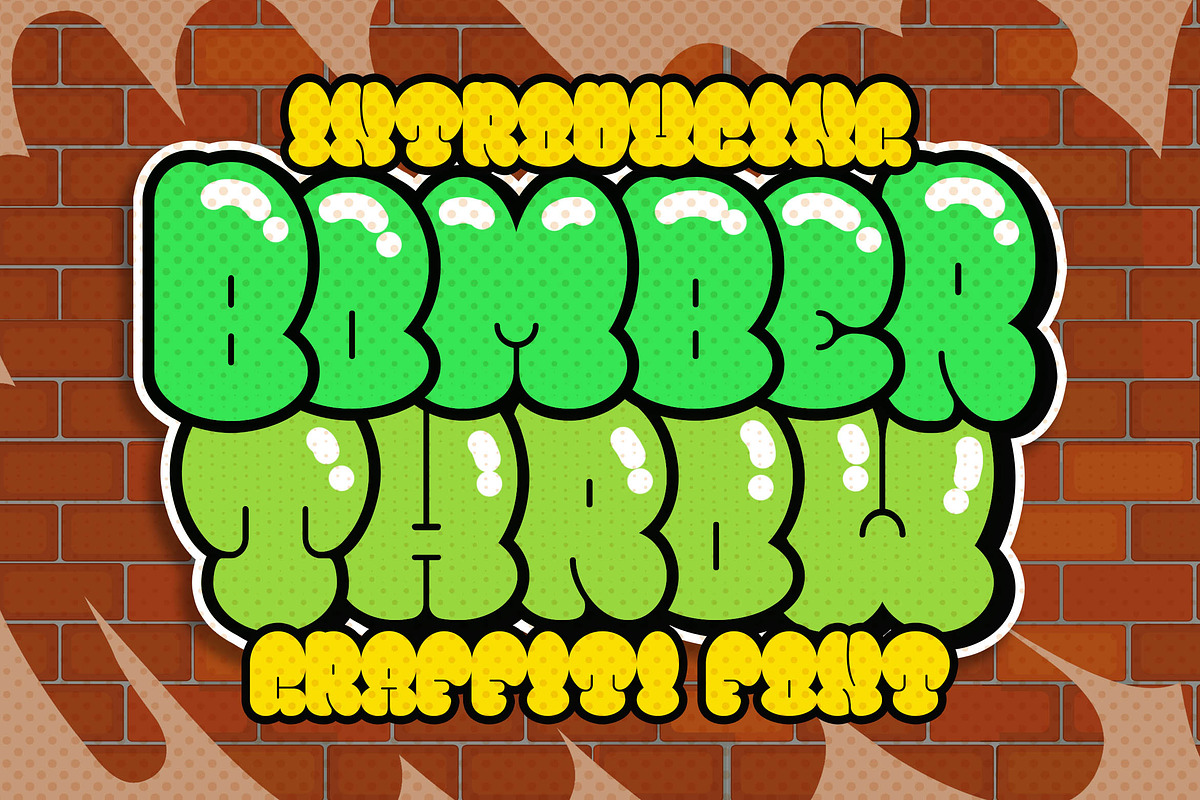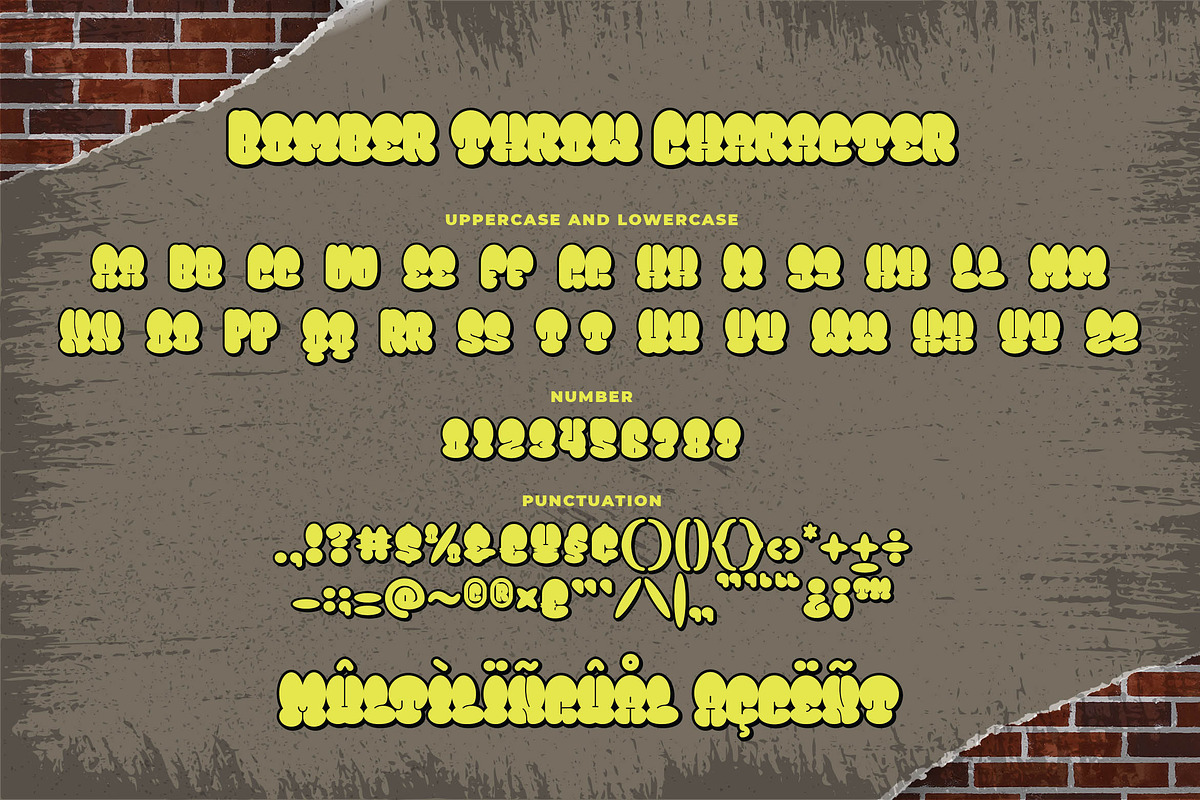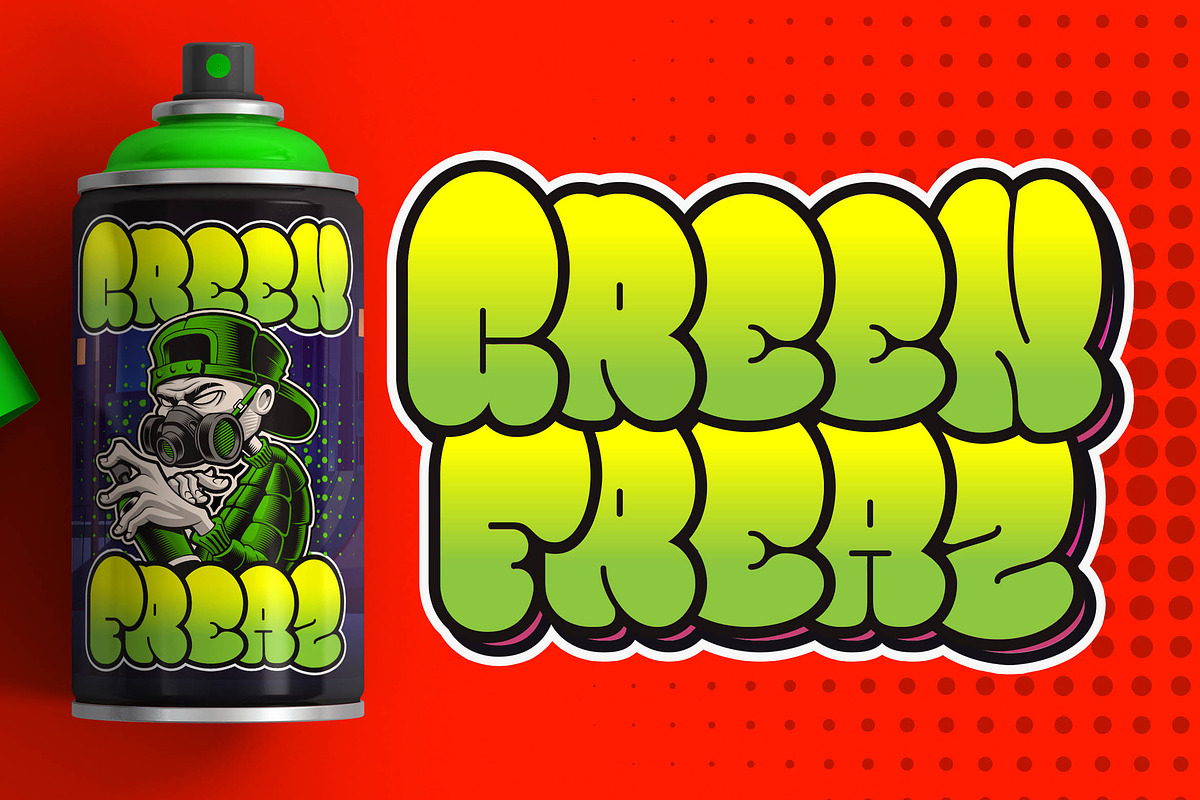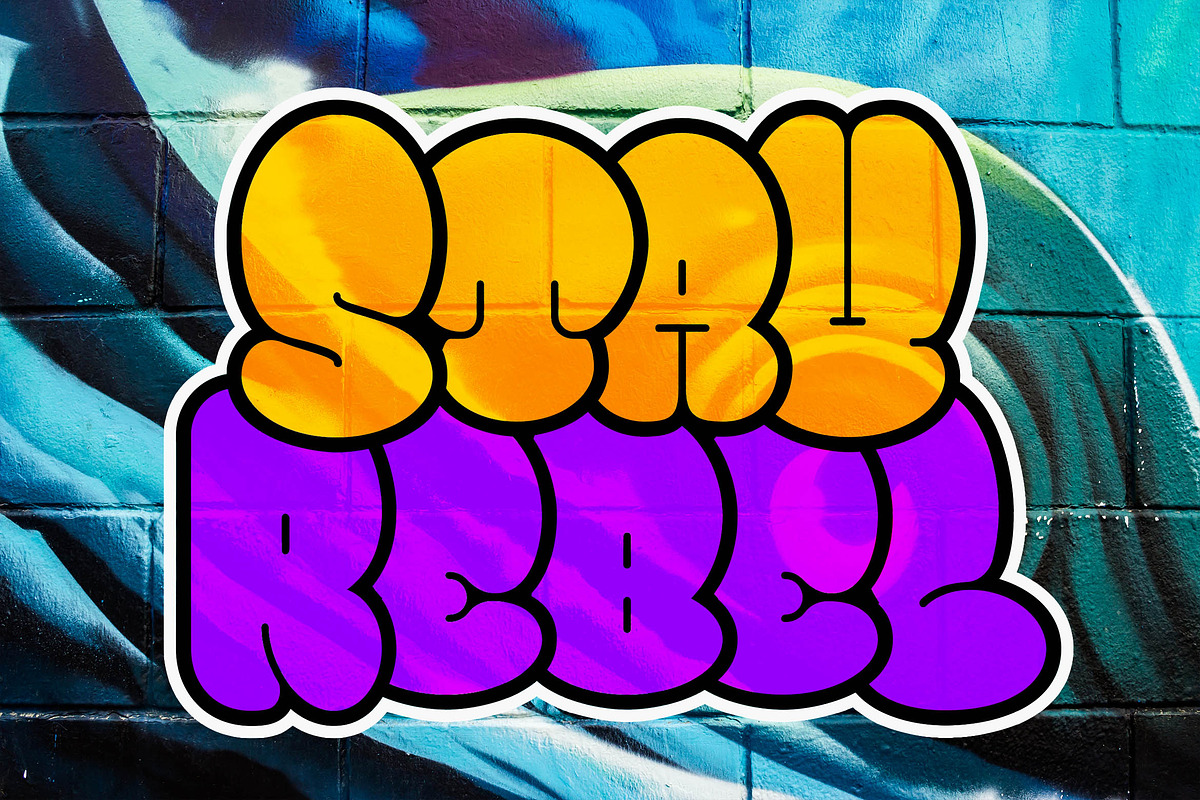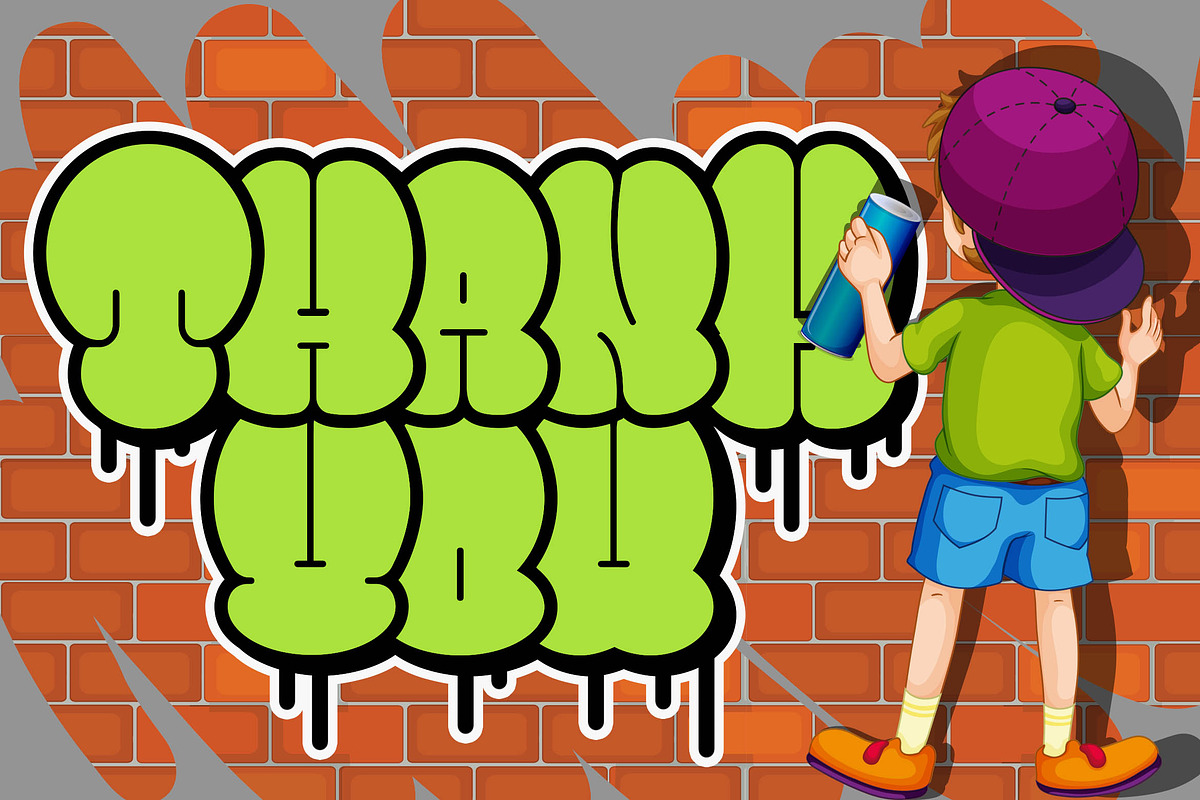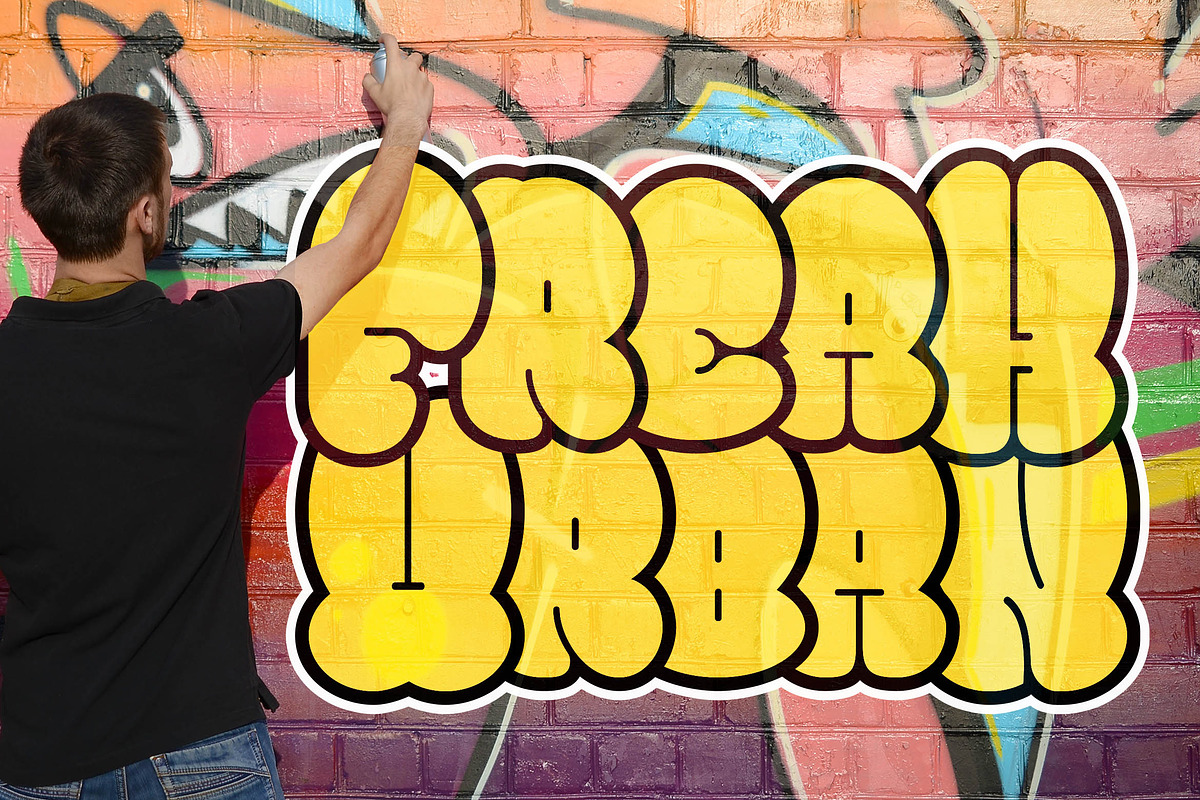
Bomber Throw Graffiti Font
Introducing of our new product the name is Bomber Throw Graffiti Font, Bomber Throw inspired by graffiti style with a fun theme very good for graffity poster, Hip Hop music, kids poster, flyer, childrenbook, cartoon, comic etc